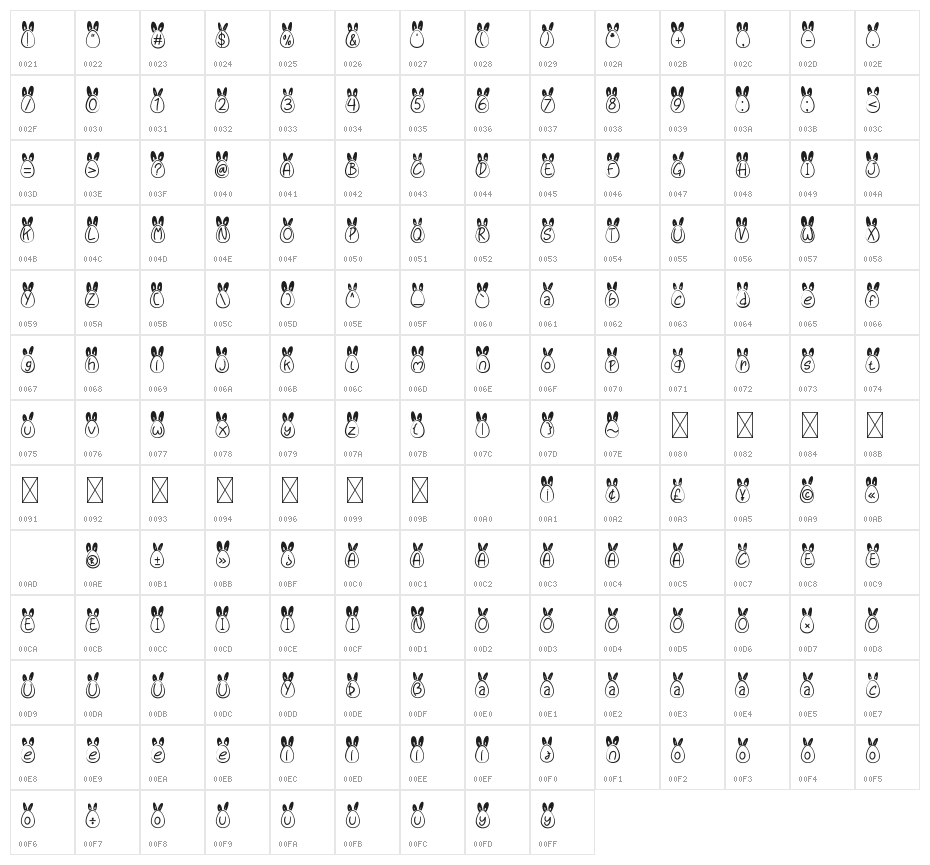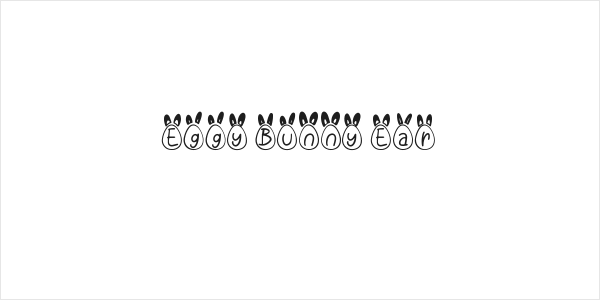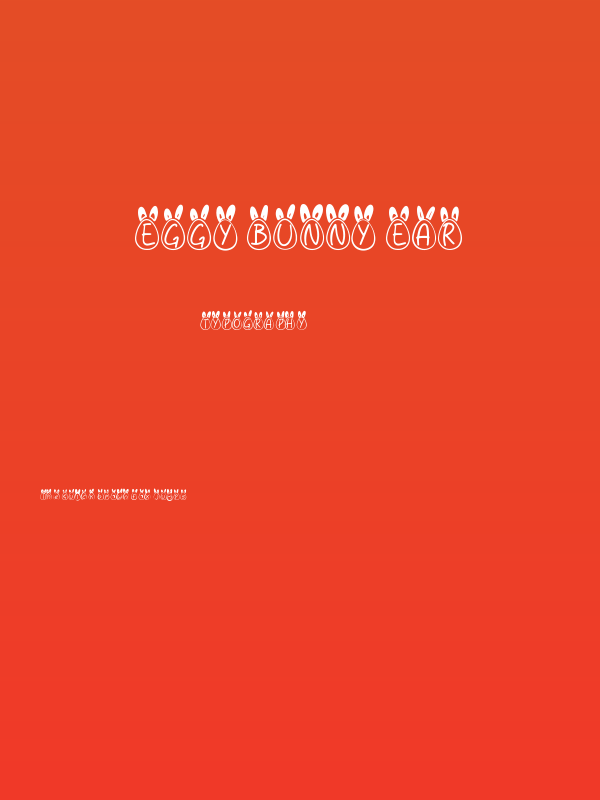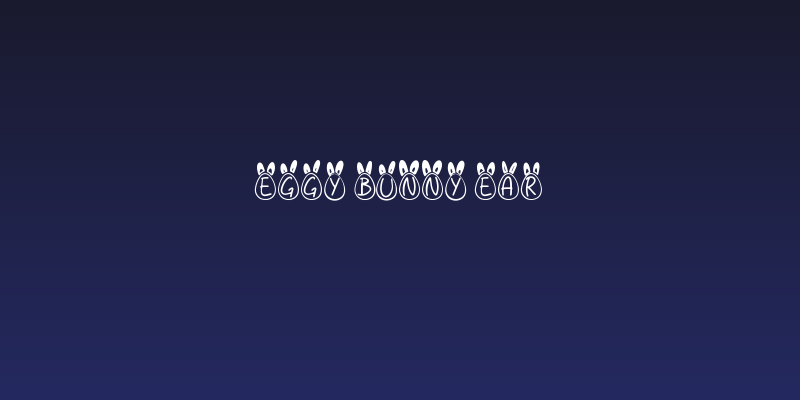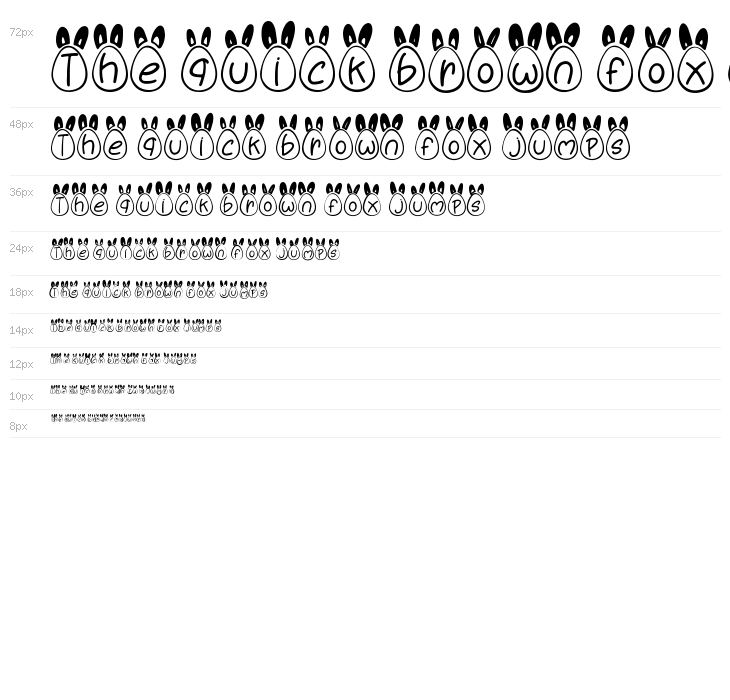
Eggy Bunny Ear Font
Eggy Bunny Ear Description
This playful and whimsical font features each character enclosed in an egg shape with bunny ears on top, giving it a fun and festive appearance. The letters are rounded and smooth, maintaining a consistent thickness throughout. The design is highly decorative, making it ideal for projects that require a touch of humor or a seasonal theme, particularly around Easter. The font includes both uppercase and lowercase letters, numbers, and a selection of special characters, all maintaining the same egg-and-ears motif.
| Overall Style | Whimsical |
| Use Case | Headlines, Logos, Decorative text |
| Proposed Projects | Ideal for Easter-themed designs, children's books, greeting cards, and playful branding. |